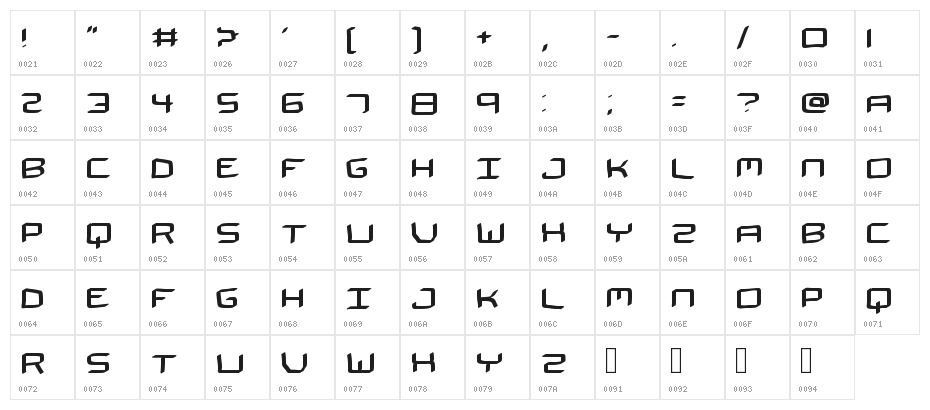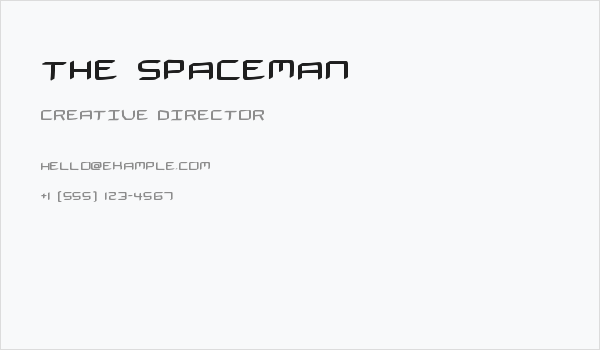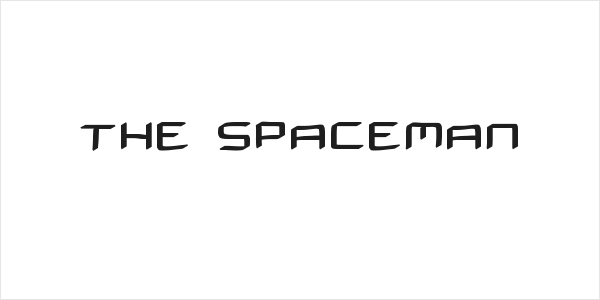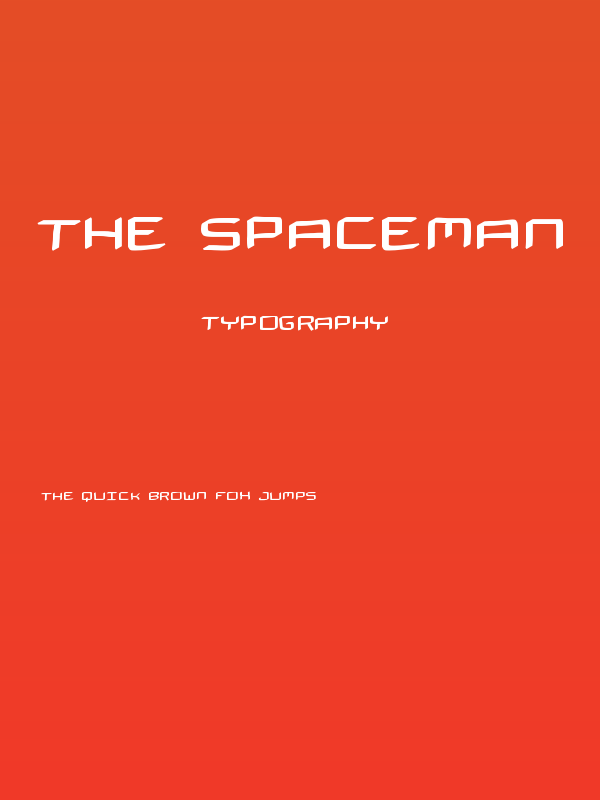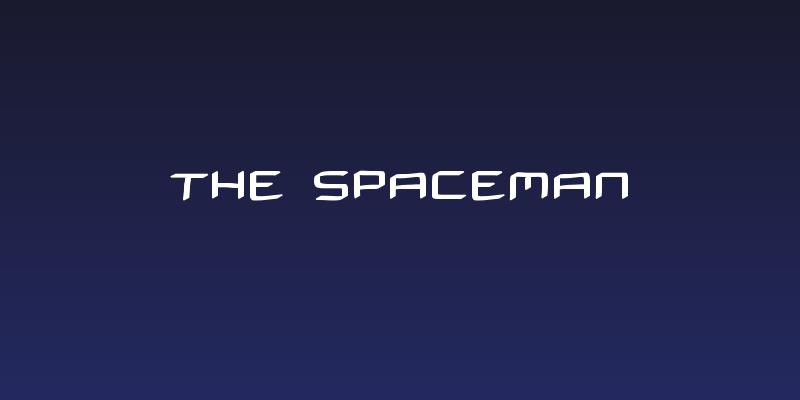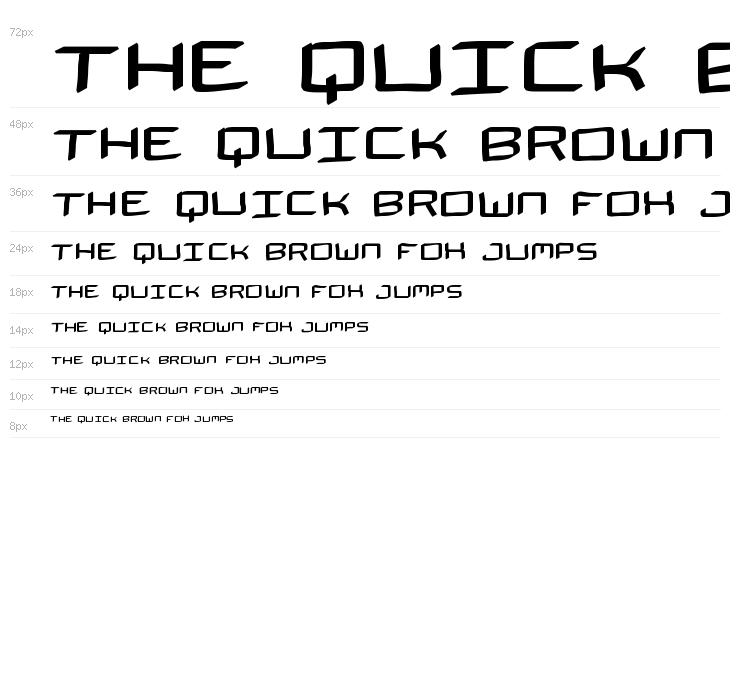
THE SPACEMAN Font
THE SPACEMAN Description
This font features a futuristic and angular design, reminiscent of science fiction aesthetics. The characters are bold and geometric, with sharp edges and a slightly condensed form. The uppercase and lowercase letters maintain a consistent style, with a unique twist on traditional letterforms. Numbers and special characters follow the same design principles, ensuring uniformity across all glyphs. The overall appearance is modern and dynamic, making it suitable for projects that require a bold and innovative look.
| Proposed Projects | Ideal for sci-fi themed projects, tech branding, video game titles, and futuristic posters. |